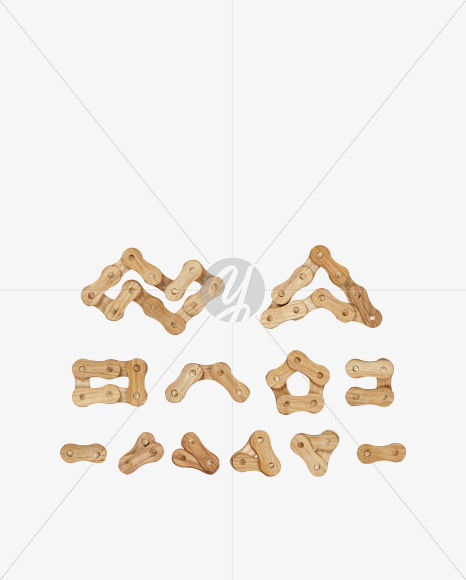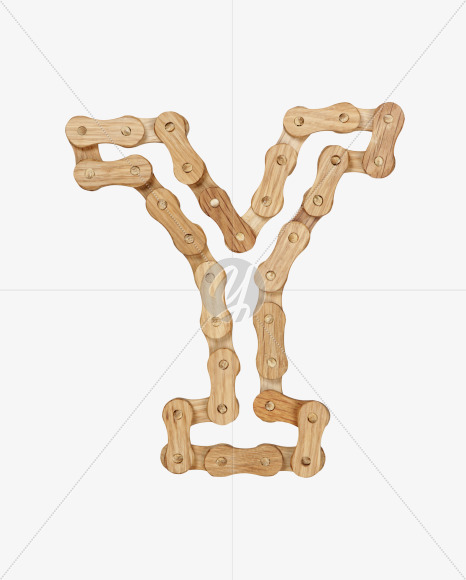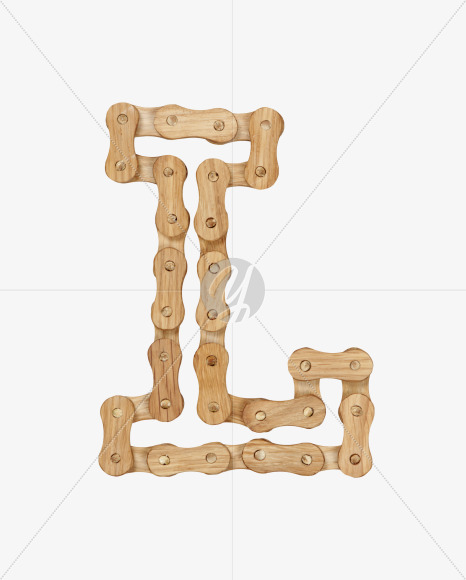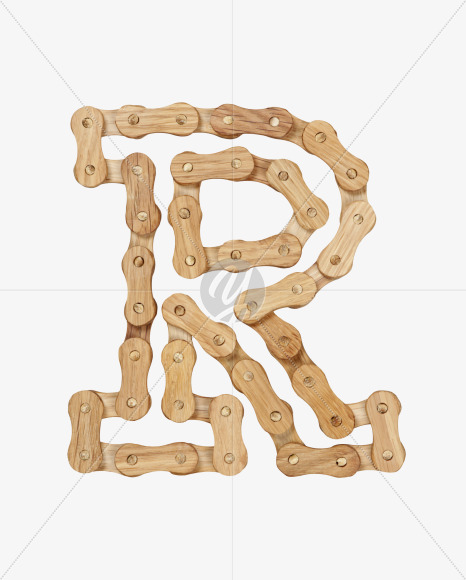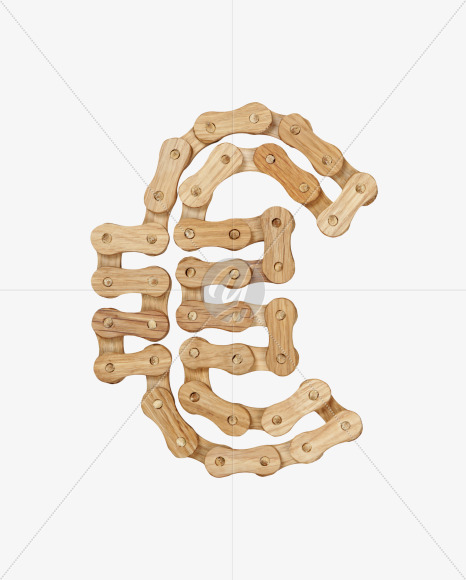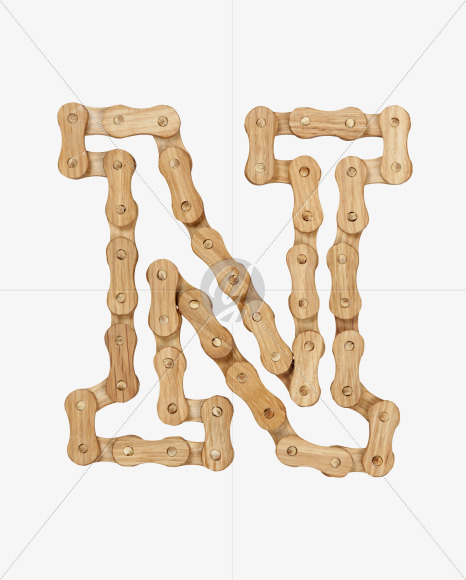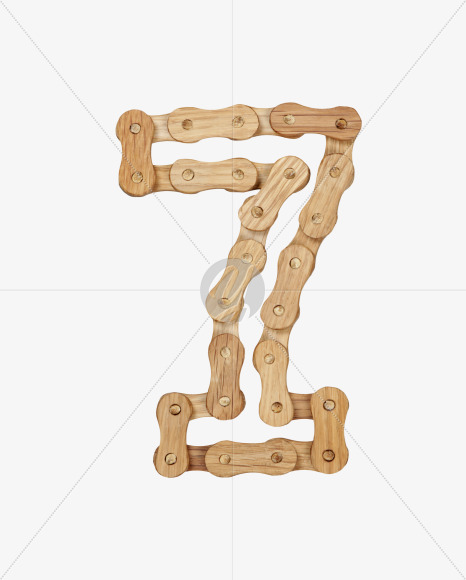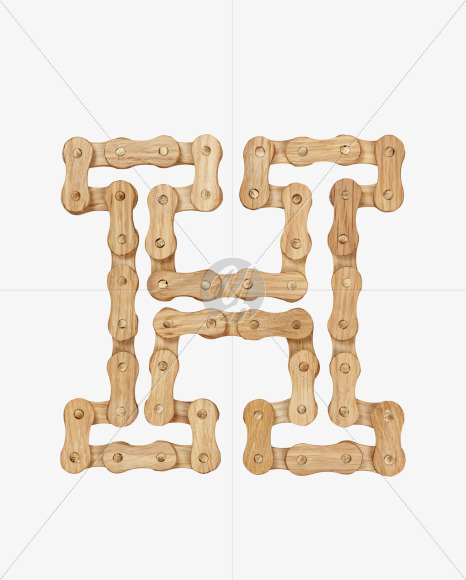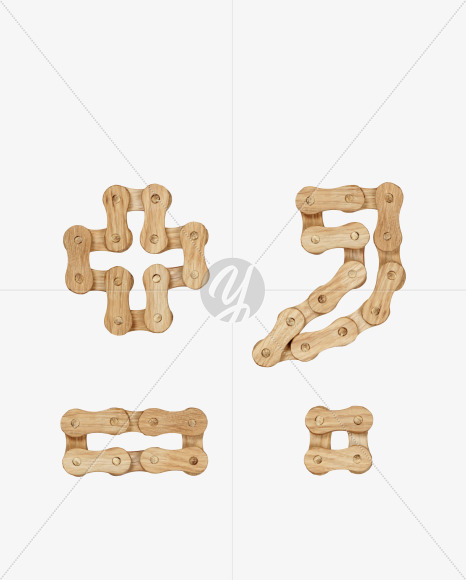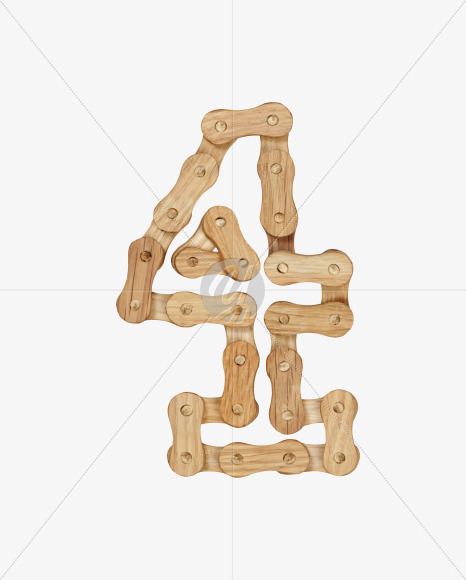
This handmade font is an embodiment of our love for the Scandinavian creativity, art and craftworks. The light brown letters of this wood font have strong ties with one another. They form an unbroken huge chain with many wooden links as their basic elements.